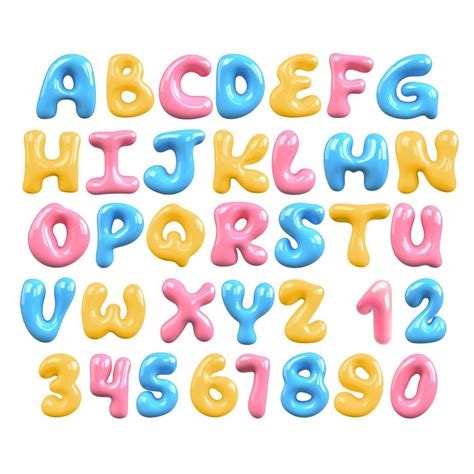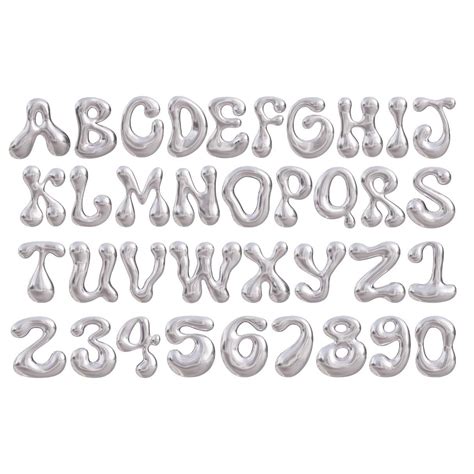
In the world of graphic design and typography, the choice of font can make or break a project. One font style that has gained significant attention for its playful and dynamic appearance is the Bubbly Alphabet Font. This font is characterized by its rounded, bubble-like shapes, which give it a whimsical and youthful feel. Whether you're designing a children's book, a fun invitation, or a playful logo, the Bubbly Alphabet Font can add a touch of charm and personality to your work.
Understanding the Bubbly Alphabet Font
The Bubbly Alphabet Font is more than just a font; it's a design statement. Its unique shape and style make it stand out from traditional fonts, which often rely on straight lines and sharp edges. The bubbly design is inspired by the playful nature of bubbles, creating a sense of lightness and joy. This font is particularly popular in projects that target a younger audience or aim to convey a sense of fun and creativity.
Characteristics of the Bubbly Alphabet Font
The Bubbly Alphabet Font has several distinctive characteristics that set it apart from other fonts:
- Rounded Shapes: Each letter is designed with rounded edges, giving it a soft and friendly appearance.
- Playful Design: The font's playful nature makes it ideal for projects that require a lighthearted and fun tone.
- Versatility: Despite its playful appearance, the Bubbly Alphabet Font can be used in a variety of contexts, from children's books to event invitations.
- Readability: While the font is whimsical, it remains highly readable, making it suitable for both short and long texts.
Applications of the Bubbly Alphabet Font
The Bubbly Alphabet Font is incredibly versatile and can be used in a wide range of applications. Here are some of the most common uses:
- Children's Books: The font's playful design makes it perfect for children's books, where it can help create a fun and engaging reading experience.
- Event Invitations: Whether it's a birthday party, wedding, or any other special event, the Bubbly Alphabet Font can add a touch of charm to invitations.
- Logos and Branding: For brands that want to convey a sense of fun and creativity, the Bubbly Alphabet Font can be an excellent choice for logos and branding materials.
- Social Media Graphics: The font's unique design can make social media posts stand out, attracting more attention and engagement.
- Educational Materials: In educational settings, the Bubbly Alphabet Font can make learning materials more engaging and enjoyable for young students.
Designing with the Bubbly Alphabet Font
When designing with the Bubbly Alphabet Font, there are several tips and best practices to keep in mind:
- Color Choices: The font pairs well with bright and vibrant colors, which can enhance its playful appearance. However, it can also work well with softer, pastel shades for a more subdued look.
- Backgrounds: Choose backgrounds that complement the font's rounded shapes. Solid colors or simple patterns work best to avoid overwhelming the text.
- Contrast: Ensure there is enough contrast between the font and the background to maintain readability. Dark text on a light background or vice versa is usually the best approach.
- Pairing with Other Fonts: If you need to pair the Bubbly Alphabet Font with other fonts, choose complementary styles that do not compete with its playful design. For example, a simple sans-serif font can provide a good contrast.
Creating a Bubbly Alphabet Font Design
Creating a design using the Bubbly Alphabet Font involves several steps. Here’s a basic guide to help you get started:
1. Choose Your Design Software: Select a graphic design software that supports font customization, such as Adobe Illustrator, Photoshop, or Canva.
2. Select the Bubbly Alphabet Font: Import the font into your design software and select it for your text.
3. Type Your Text: Enter the text you want to use. The Bubbly Alphabet Font works well with short phrases and headlines, but it can also be used for longer texts if needed.
4. Adjust the Size and Spacing: Adjust the font size and letter spacing to ensure the text is readable and visually appealing. The rounded shapes of the font may require slight adjustments to maintain clarity.
5. Add Colors and Effects: Experiment with different colors and effects to enhance the design. You can add gradients, shadows, or other effects to make the text stand out.
6. Review and Finalize: Review your design to ensure everything looks cohesive and visually appealing. Make any necessary adjustments before finalizing your project.
Examples of Bubbly Alphabet Font in Use
To better understand the versatility of the Bubbly Alphabet Font, let's look at some examples of how it can be used in different contexts: